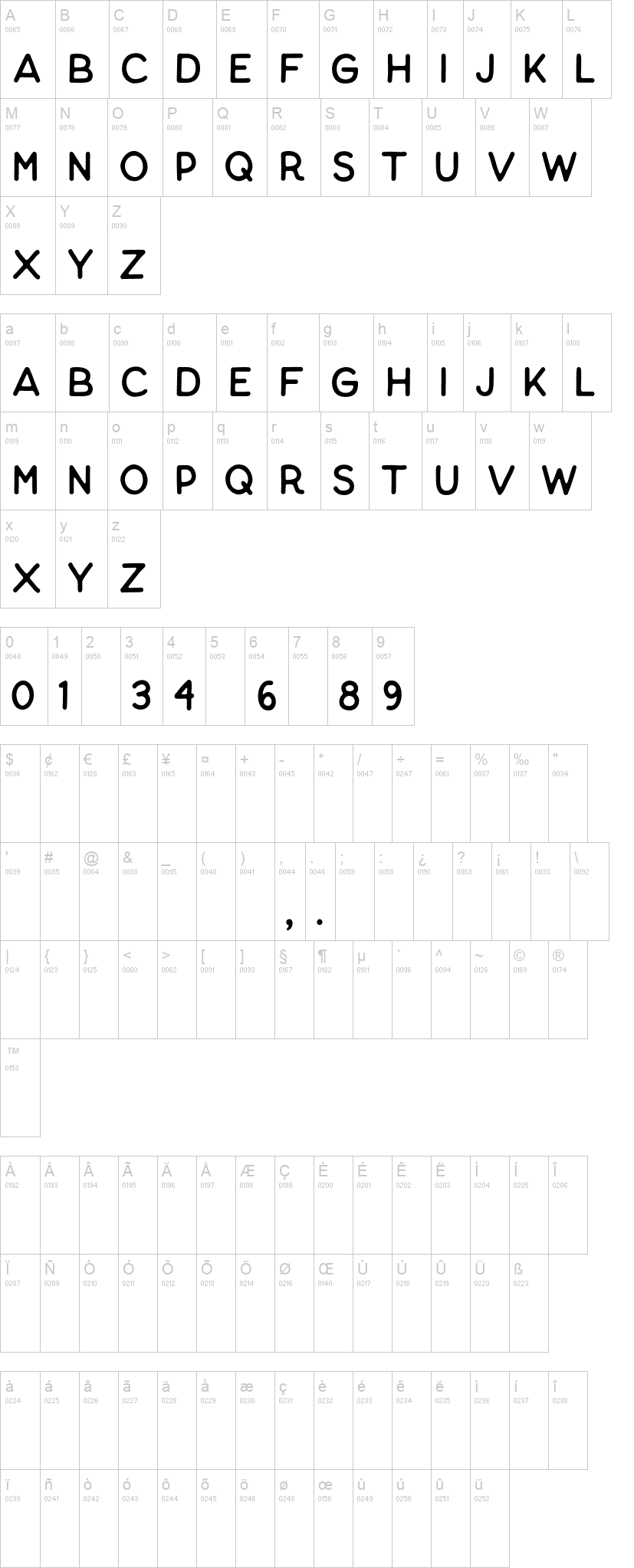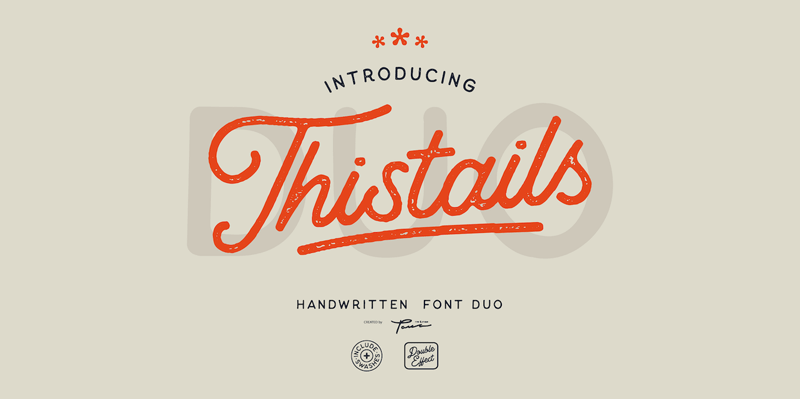
ThistailsSans_Demo-Rough.otfNote of the authorThistails is font duo with modern vintage look design styles, available on script and Display Sans serif typeface. These two lovely fonts would be perfect to combine in your design. Suitable for digital lettering, logo, t-shirt, print, business cards, branding materials, quotes, nature photography, etc, made with hand painted and carefully crafted.